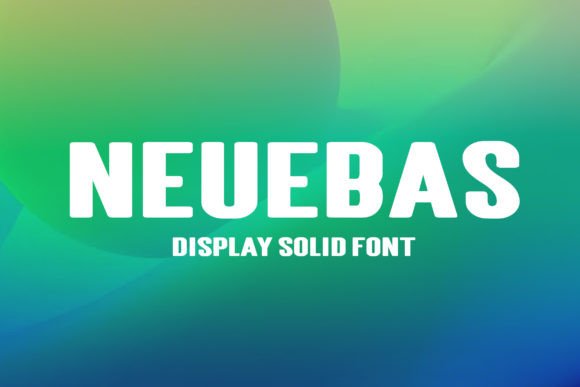
Introducing Neubas Font, a breathtaking display font crafted to captivate and inspire. Its clean lines and elegant curves will add a touch of sophistication and style to your creative projects. Perfect for crafting eye-catching invitations, posters, and digital designs, Neubas Font will help you create a lasting impression.
Elevate your designs with Neubas Font's modern aesthetic. Its sleek lines and sharp angles exude a sense of professionalism and modernity, making it an ideal choice for presentations, branding, and marketing materials. Whether you're creating a memorable logo or a stunning website, Neubas Font will elevate your design to new heights.
Unleash your creativity with Neubas Font's versatility. Its adaptable nature makes it suitable for a wide range of design needs. From delicate wedding invitations to playful social media graphics, Neubas Font effortlessly adapts to your vision. Let its versatility inspire you to create designs that stand out from the crowd.
Indulge in the beauty of Neubas Font. Its carefully crafted characters exude charm and elegance, adding a touch of sophistication to any project. Experience the joy of using a font that is both aesthetically pleasing and highly functional. Neubas Font will ignite your passion for design and help you create truly exceptional work.